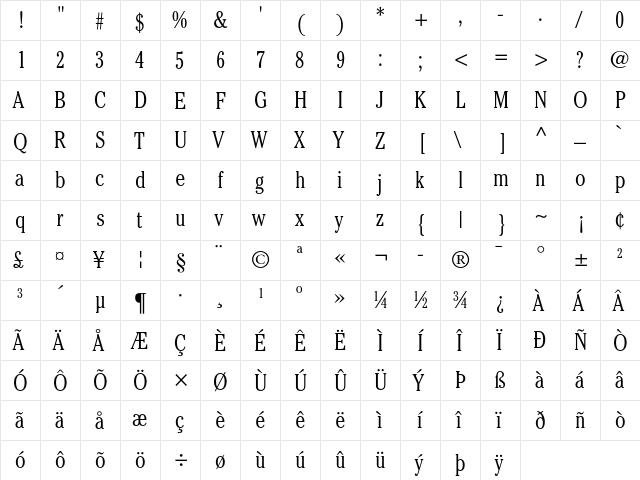
ITC Cheltenham Light Condensed
Design Context for ITC Cheltenham Typeface
ITC Cheltenham is a composed and adaptable typeface that performs quietly and consistently across a wide range of design contexts. The delicate stroke weight brings airiness and refinement to layouts. The condensed width makes it efficient for tight spaces without sacrificing legibility.